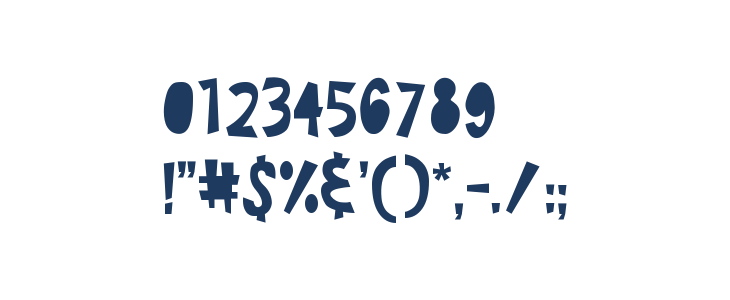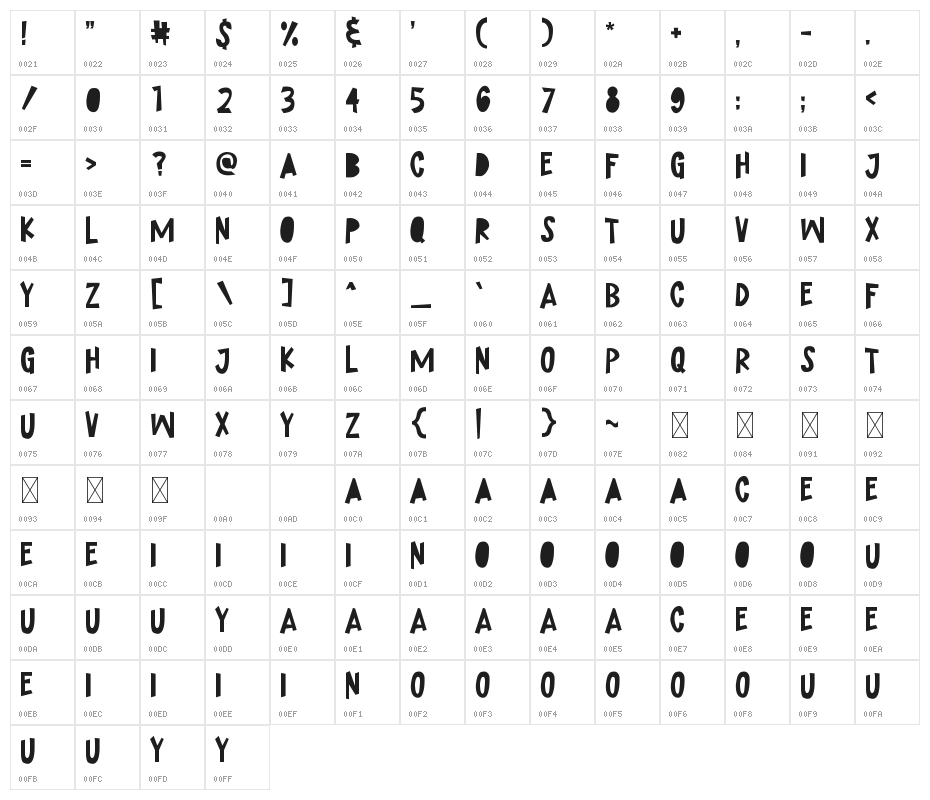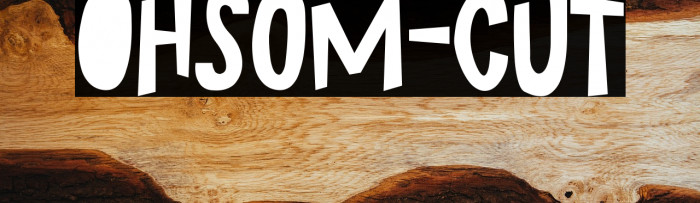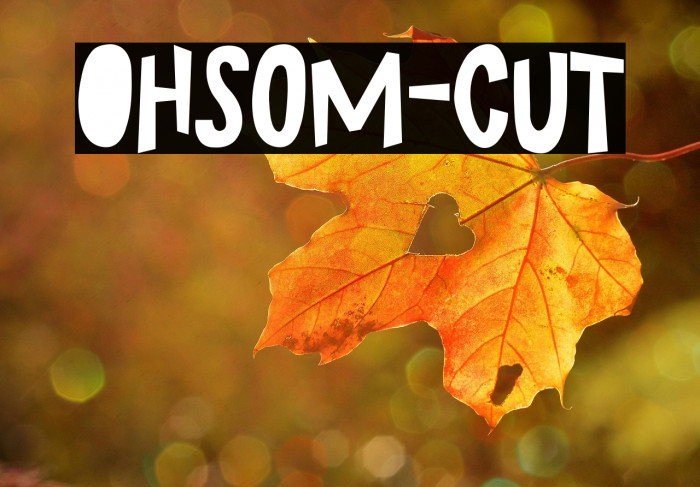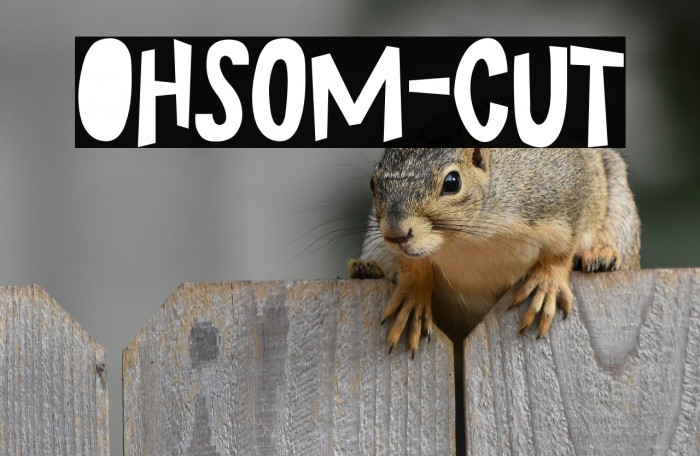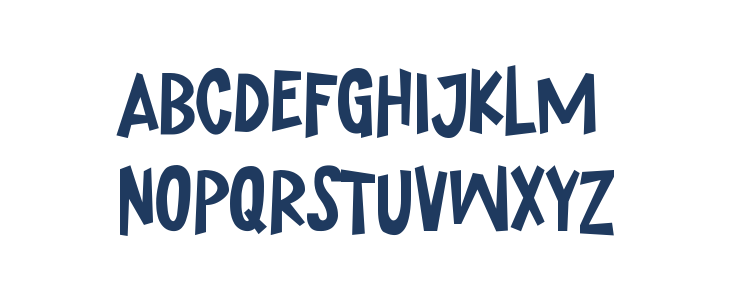
Ohsom-Cut Font
Ohsom-Cut Description
This font features a bold and playful design with exaggerated curves and angles, giving it a lively and dynamic appearance. The uppercase letters are particularly striking, with some characters leaning slightly, adding to the whimsical feel. The lowercase letters maintain this playful style, ensuring consistency throughout the typeface. Numbers and special characters are also designed with the same boldness and creativity, making them stand out. The overall look is informal and fun, making it ideal for projects that require a touch of personality and flair.